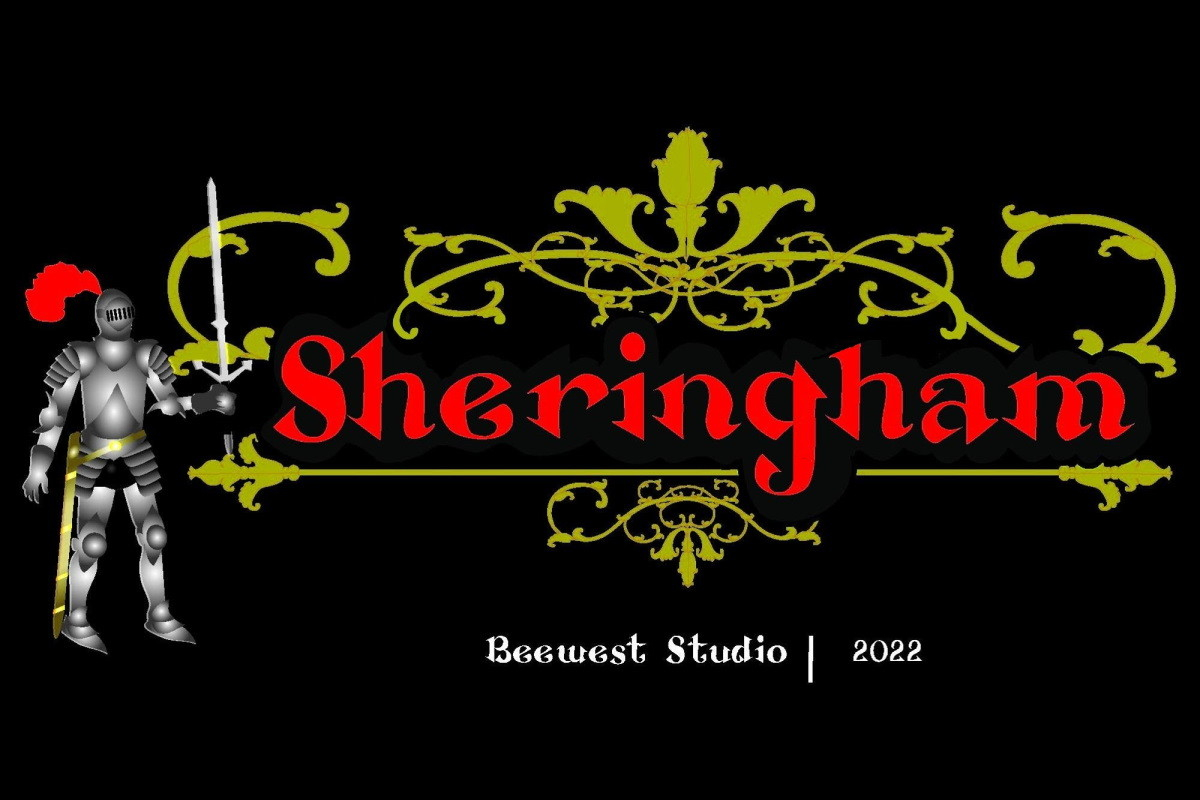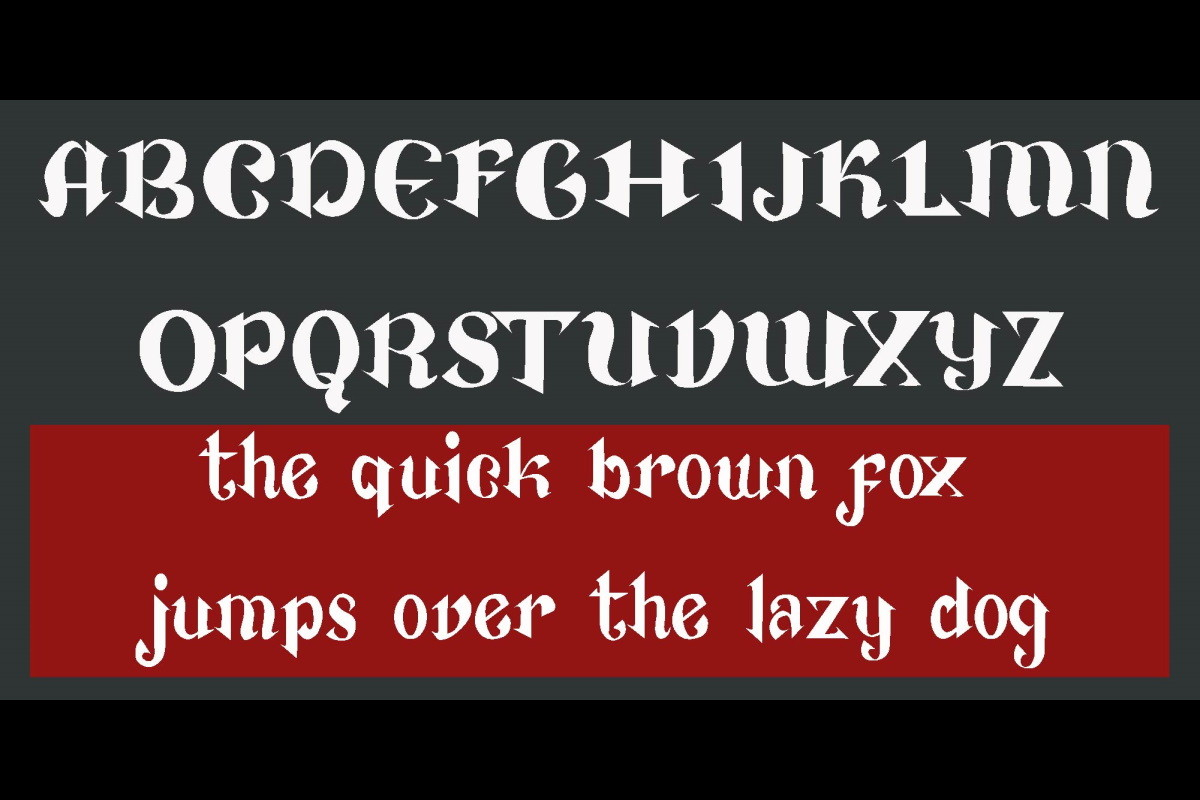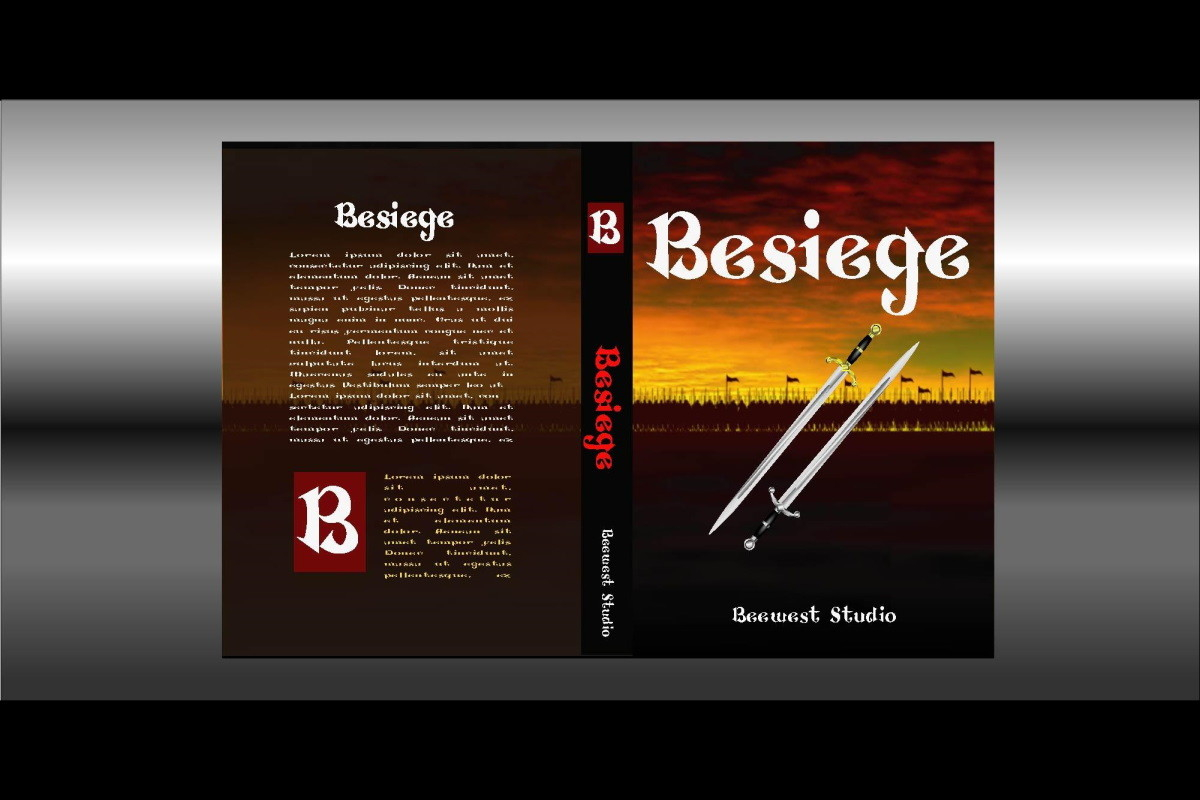
Sheringham Font
About Sheringham Font
Sheringham is a bold, classic, and modern black letter font. It will increase a variety of craft ideas, from cards to branding, labels, book cover titles, and more.